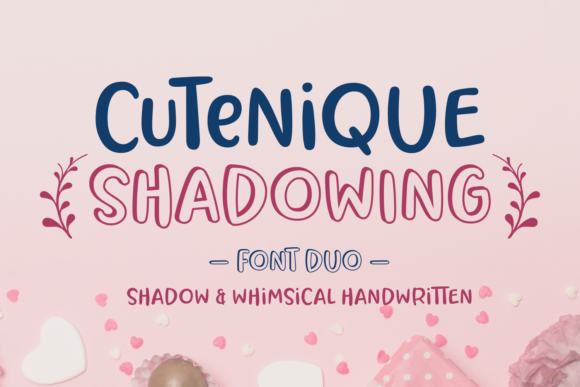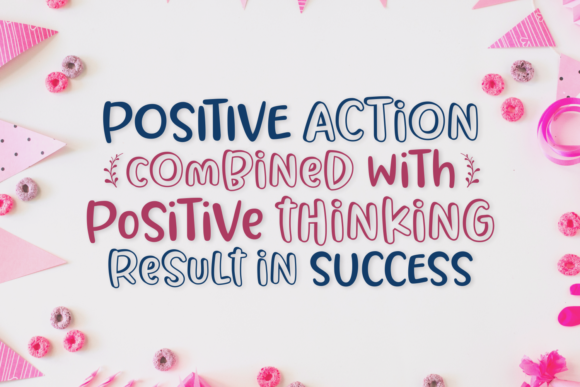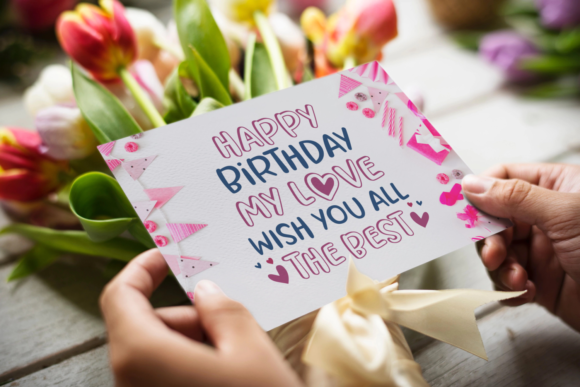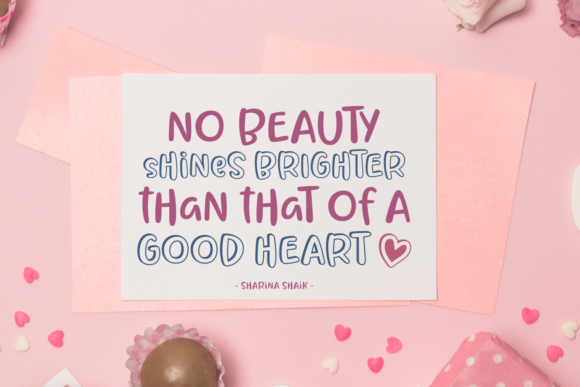
Cutenique Font
About Cutenique Font
Cutenique is a cute and sweet script with a lovely look. It’s a true head-turner of a font, perfect for any craft in need of an authentic touch.